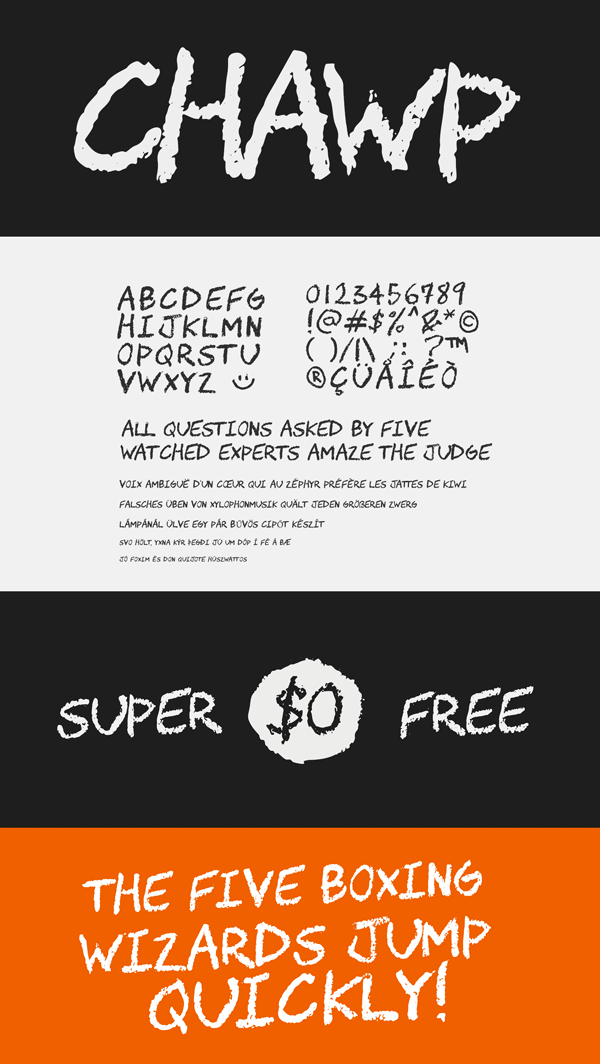
Chawp is a cool free handwriting font born out of the chalkboard. It has only capital letters so it’s great for big display, and cafe menu!
Designer: Tyler Finck